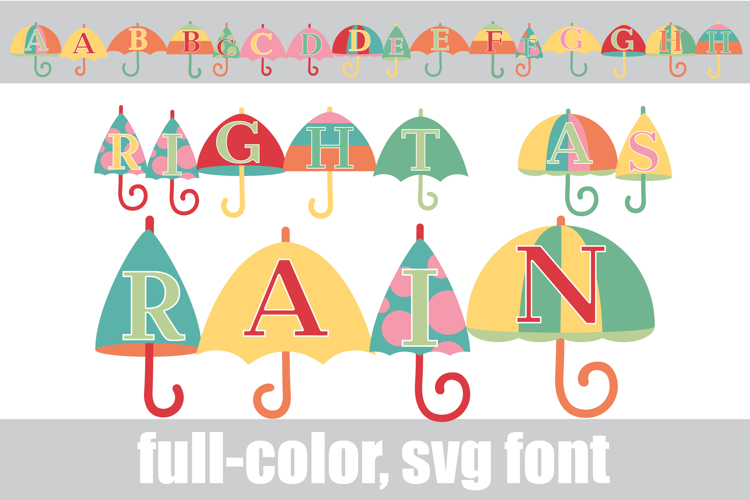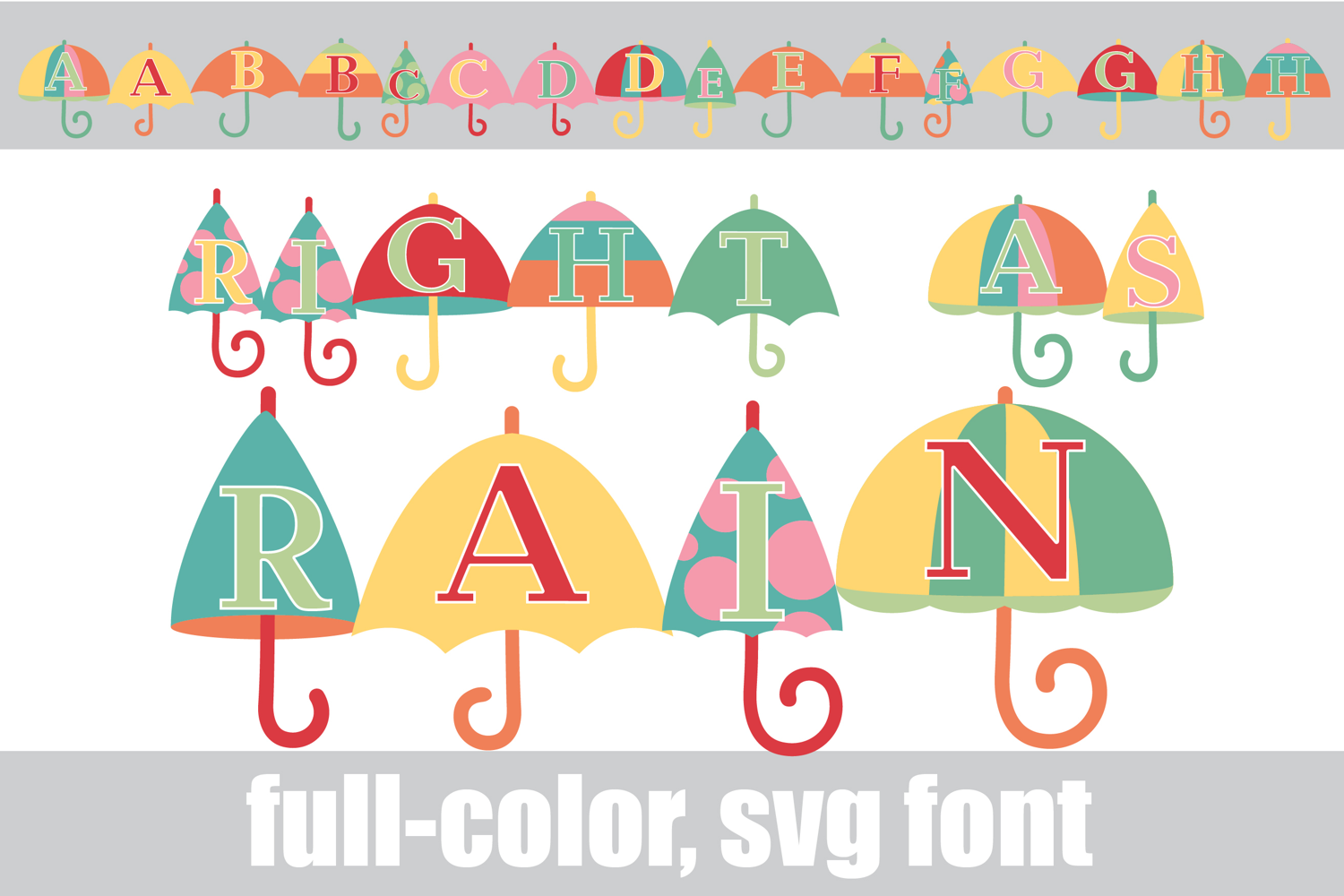
Right as Rain Color Font
This full-color, font is serif lettering on spring umbrellas. There is an alt case of additional colors of each letter that you can access through your system's character map.